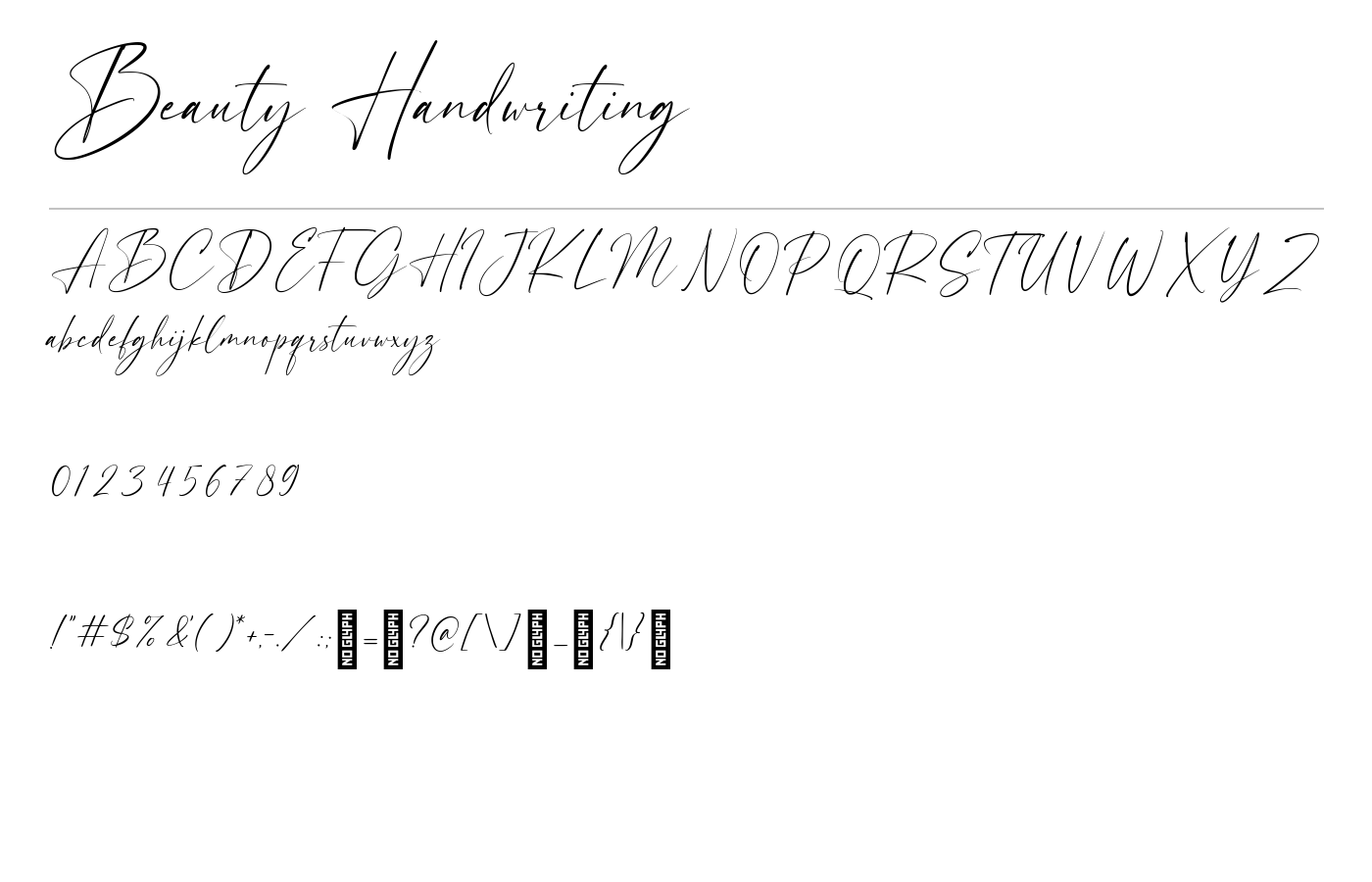
Beauty Handwriting is an elegant, delicate script font with a natural, flowing style that mimics graceful, refined penmanship. Its thin strokes and airy letterforms create a sophisticated and stylish look, perfect for branding, invitations, and editorial design where a personal, luxurious touch is desired. This font works beautifully in headlines and decorative text, adding charm and a sense of refinement to any project.
Beauty Handwriting Font
About Beauty Handwriting Font
| Font family | Beauty Handwriting Font |
| Designer | Sigit Dwipa Raharjo |